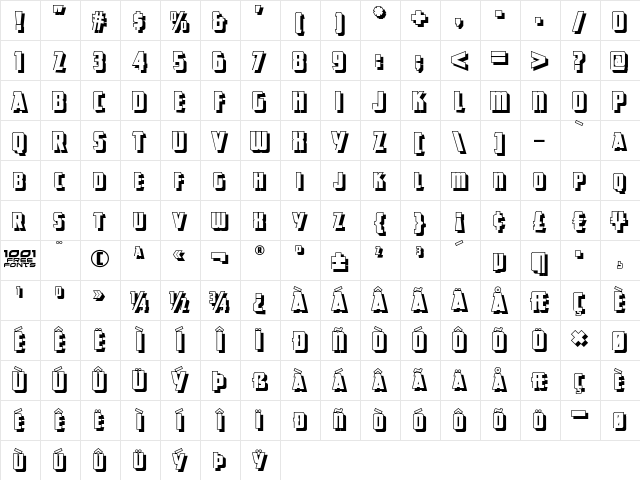
Great Lakes Shadow NF Regular Font Preview
Great Lakes Shadow NF Regular
Great Lakes Shadow NF Regular Font Details
Design Context for Great Lakes Shadow NF Typeface
Great Lakes Shadow NF is built around its visual character rather than neutral utility — its distinctive forms are designed to make an impression at display sizes.
Font Pairing: Pair with a clean neutral sans-serif for body copy to let Great Lakes Shadow NF's character lead without overwhelming the composition.
Pro Tip: Treat Great Lakes Shadow NF as the centrepiece of your typographic hierarchy. One strong heading set in a decorative face can carry an entire layout.